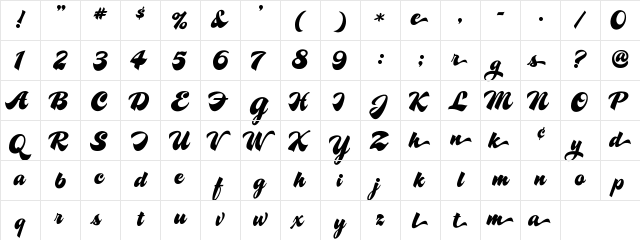
A&S Motherlode Bold
Design Context for A&S Motherlode Typeface
A&S Motherlode is a composed and adaptable typeface that performs quietly and consistently across a wide range of design contexts. The heavy weight commands attention and anchors typographic hierarchies.